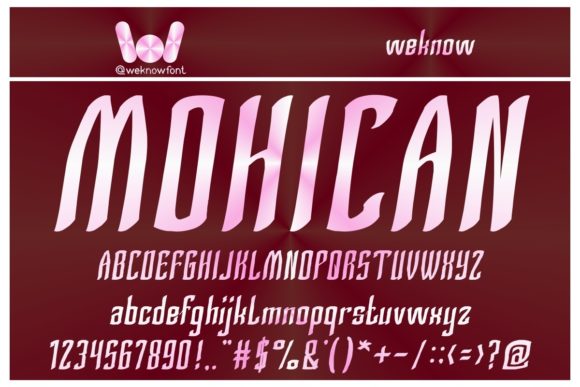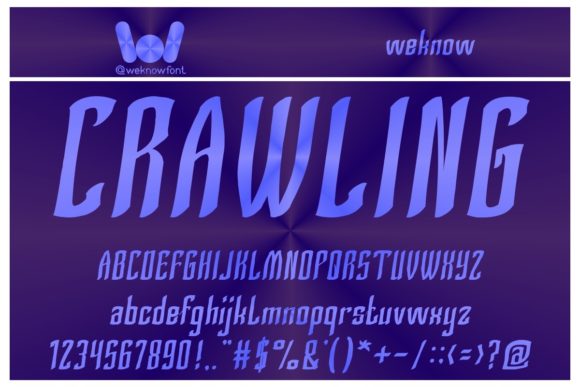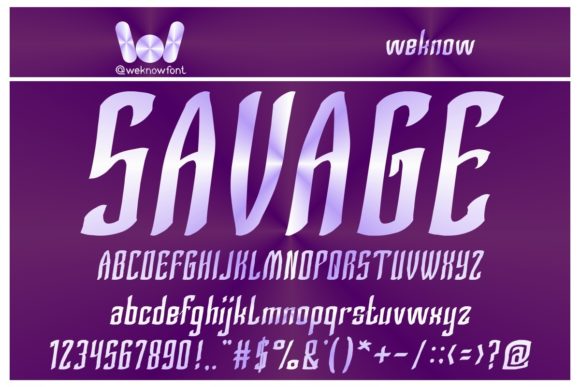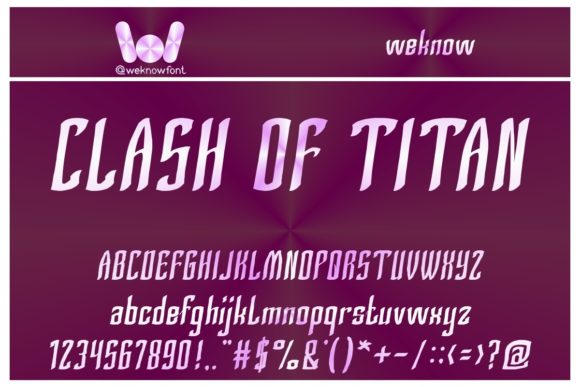
Silver Knight Font – Free Download
Introduction to Silver Knight Font
Silver Knight is a fancy and cool looking display font.
It is suitable for logos, corporate identity, brand identity, apparel industry, poster, music, movie, game, magazine, book, comic, cartoon, YouTube, Instagram, website, or any of your creative design projects .
Key Features of Silver Knight Font
Why Choose Silver Knight Font?